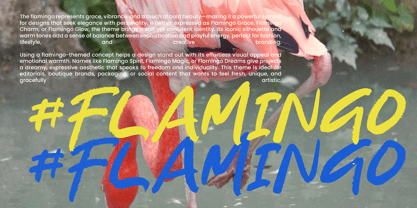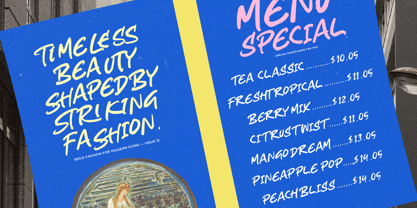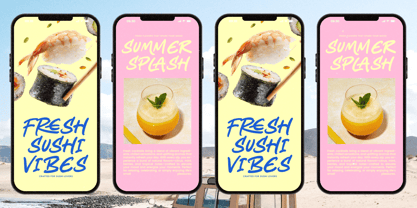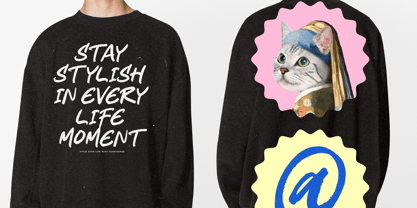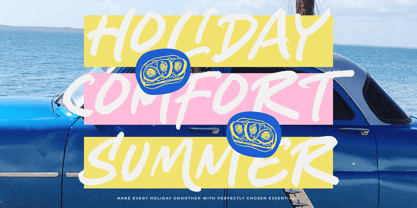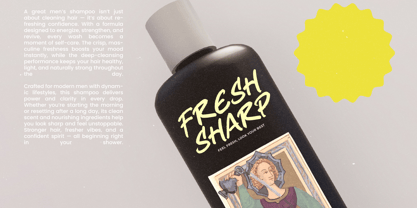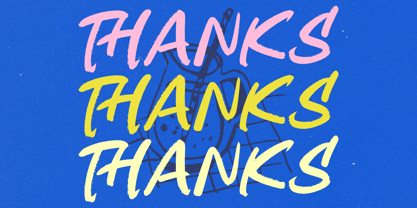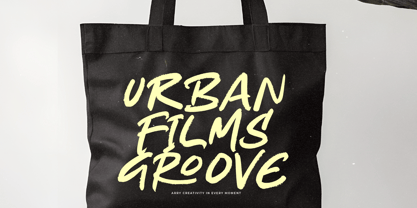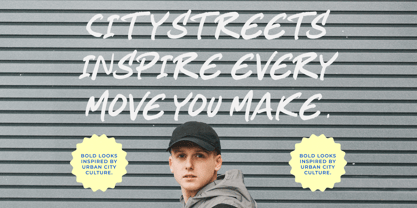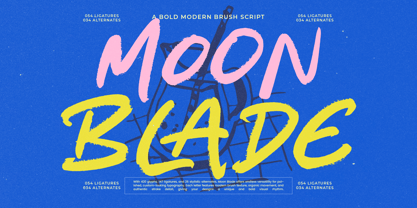
Moon Blade
Moon Blade is a premium modern brush script crafted for designers who demand bold character and high-impact visual identity. Its energetic hand-painted strokes, organic texture, and expressive movement create a powerful statement in every layout. Equipped with 54 ligatures and 34 stylistic alternates, Moon Blade delivers advanced customization for polished branding, apparel designs, music artwork, social media visuals, packaging, and editorial titles. Every letter carries authentic brush detail, ensuring your typography feels dynamic, artistic, and unmistakably unique. Perfect for creators seeking a modern script that elevates their projects with confidence, style, and professional-grade versatility.